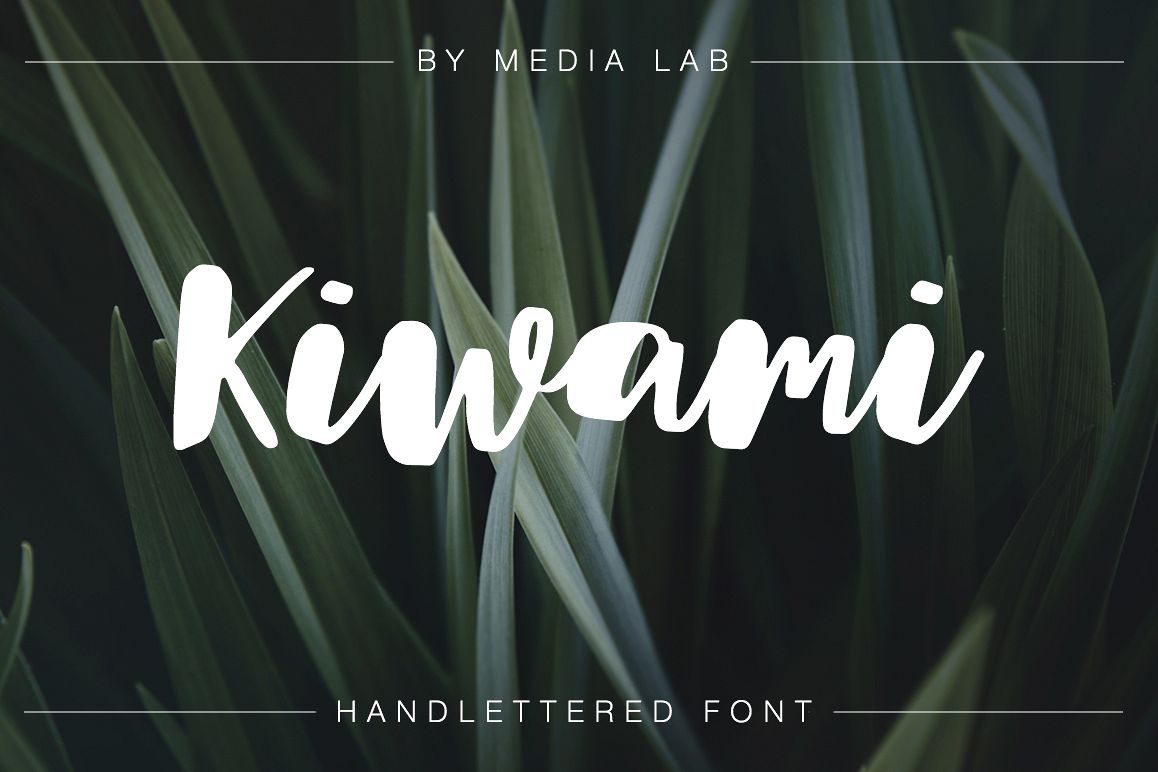
Kiwami handwritten font
It's a sweet hand lettered font with swirls and alternates. Also with this type, you will see a lot of interesting extras. This brush font is ideal for branding and decorate your any project.
This font are perfect for wedding postcard. Or you can create perfect and unique design of your logo, blog, stationery, marketing, magazines and more :)